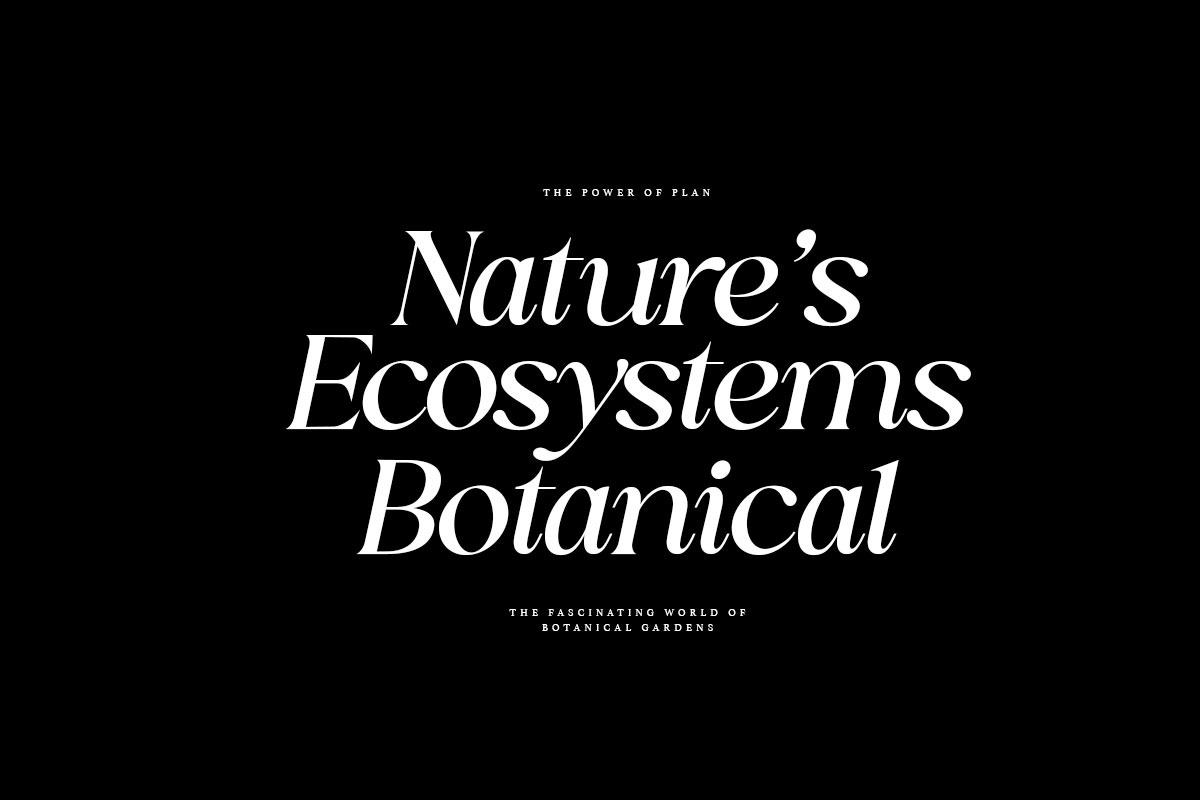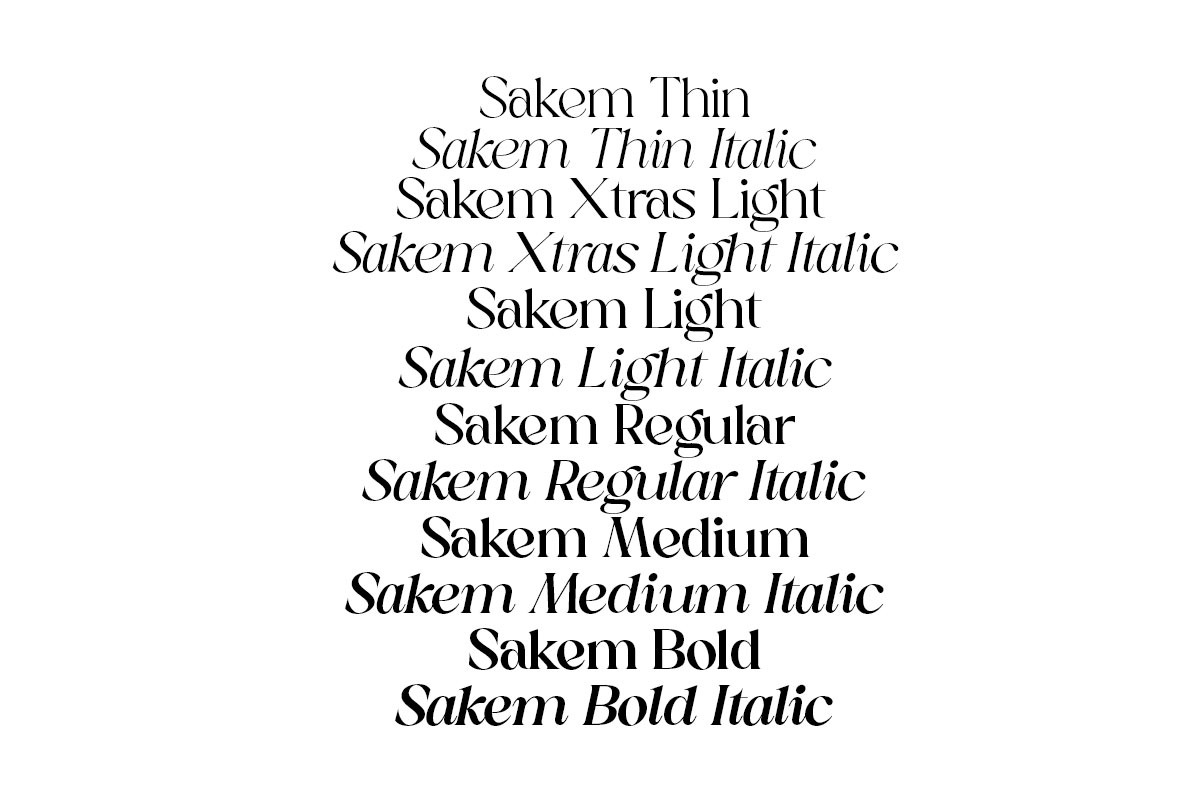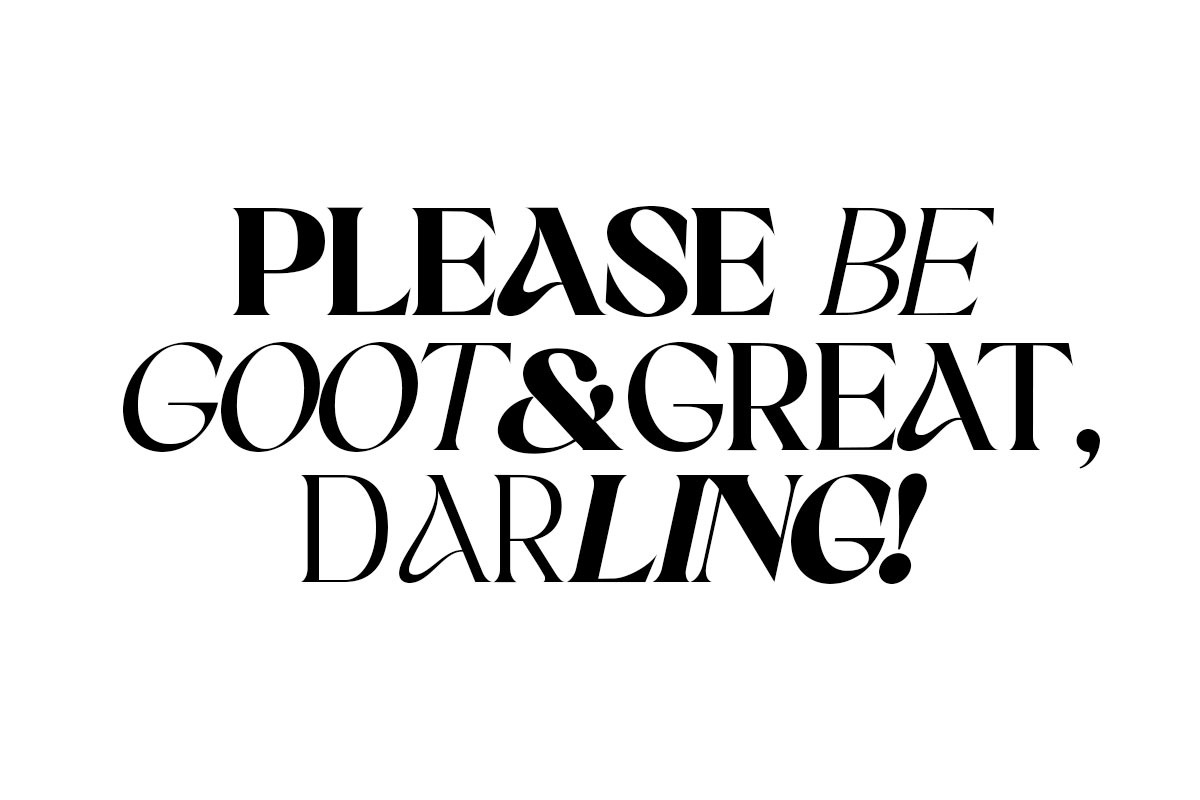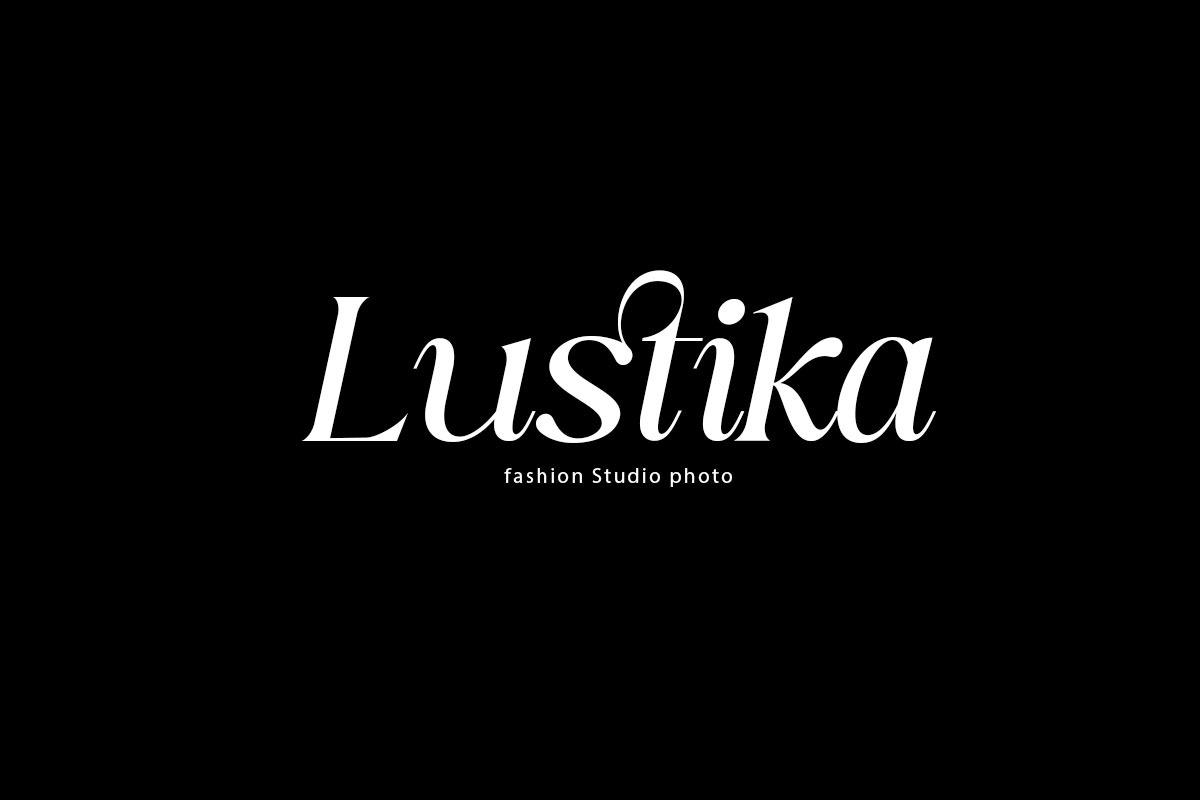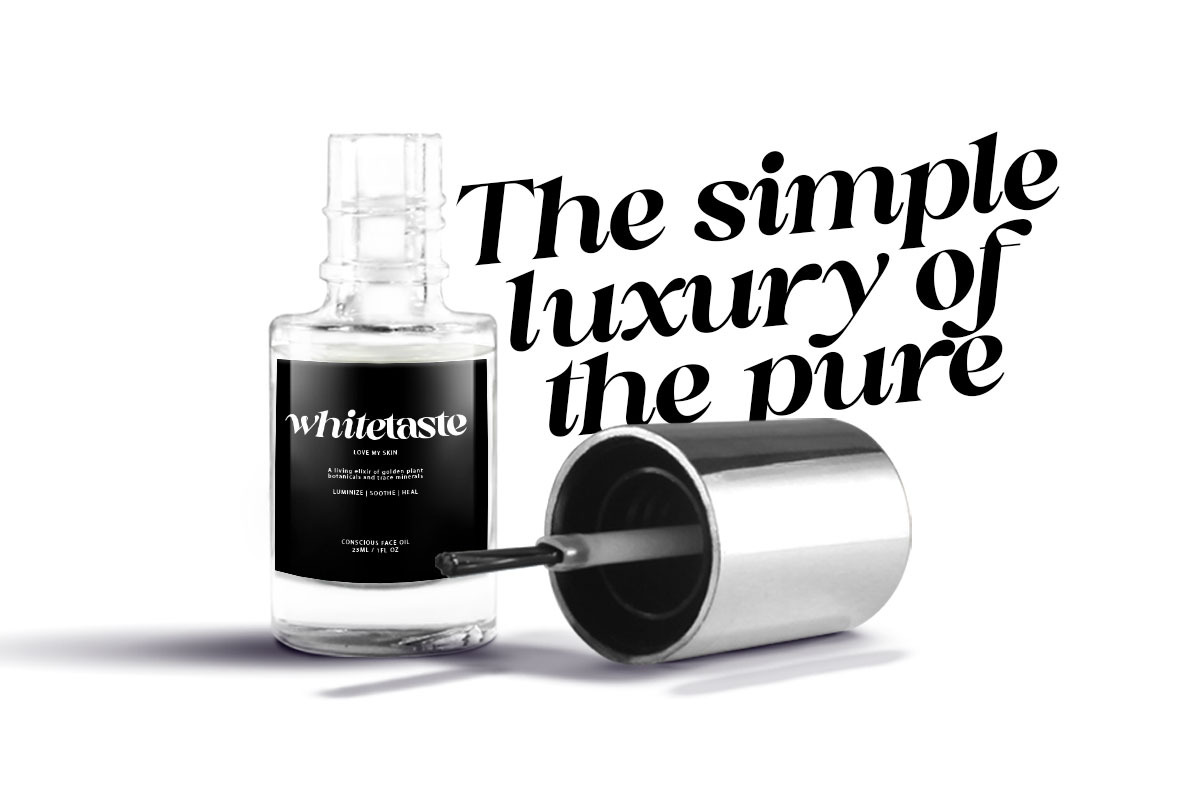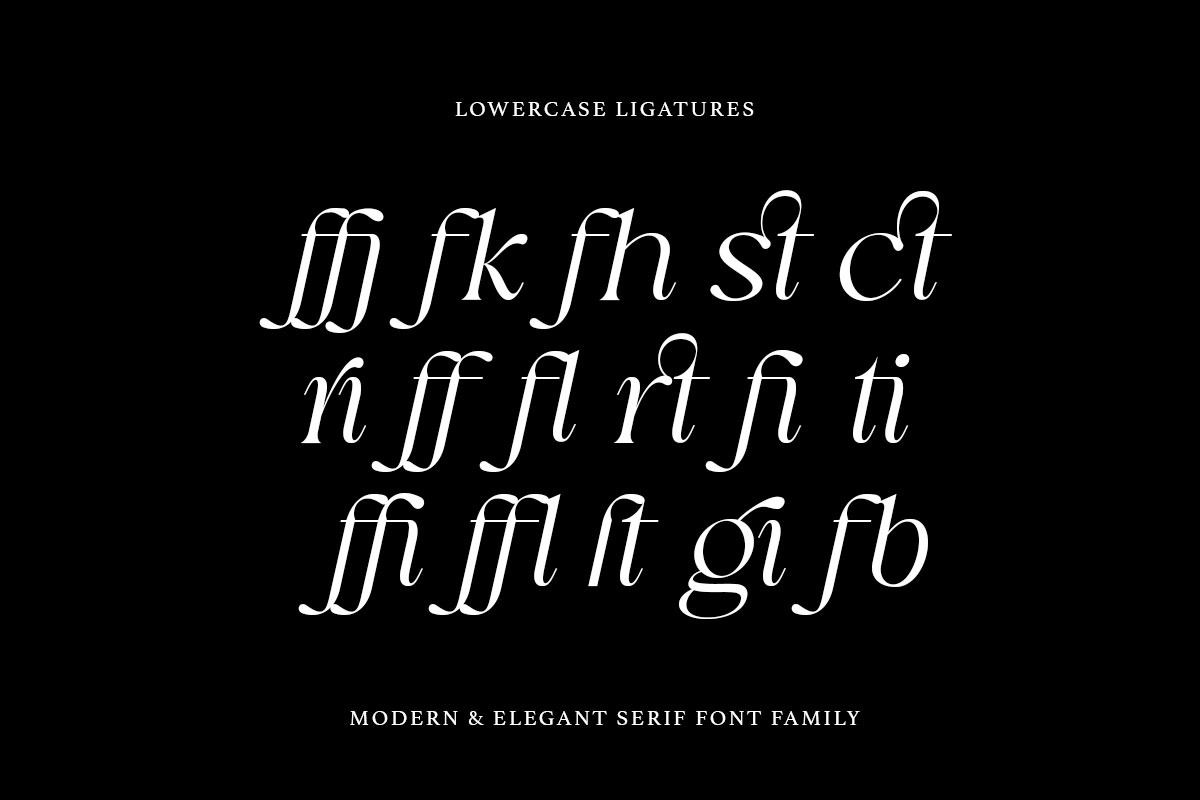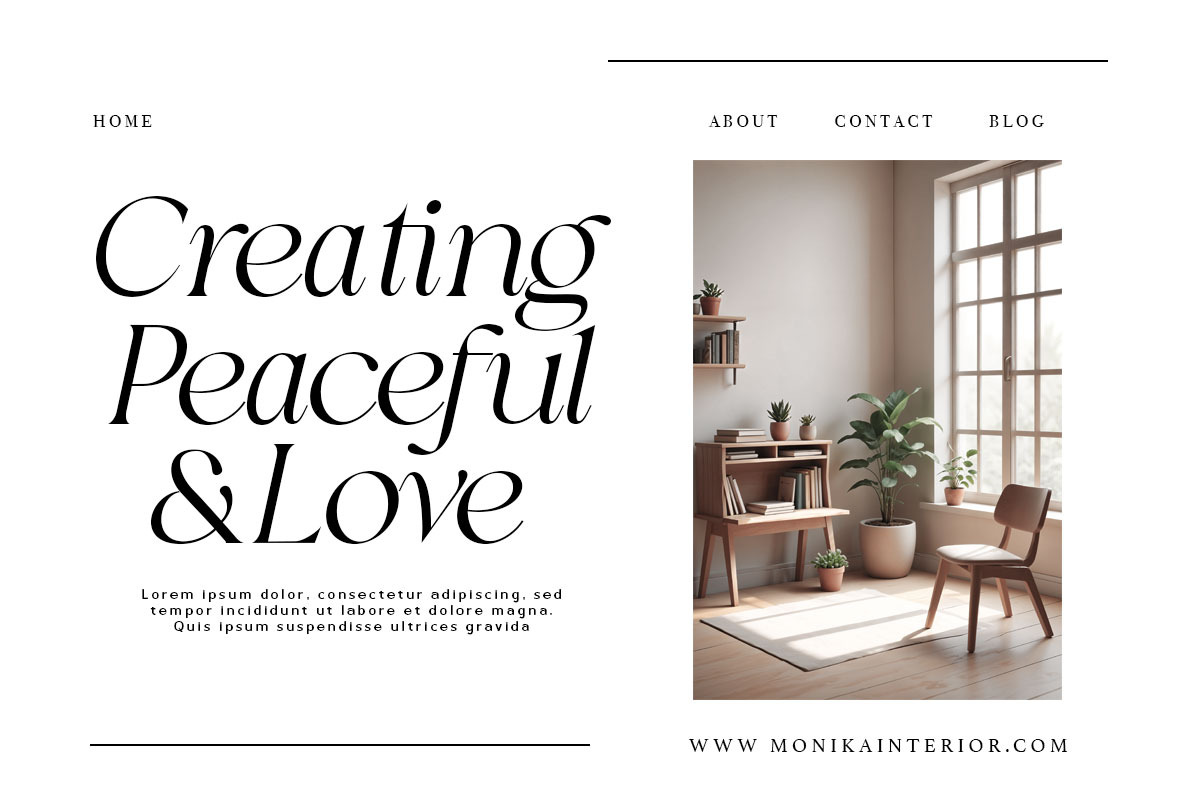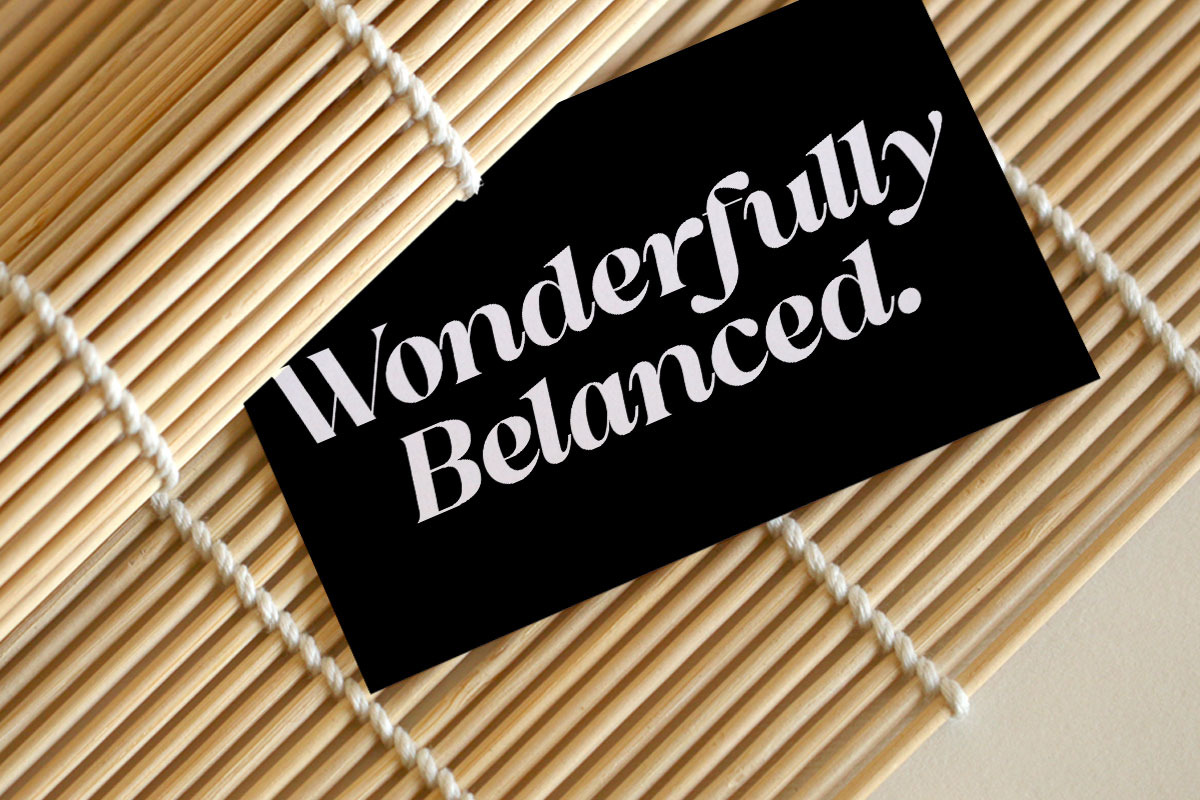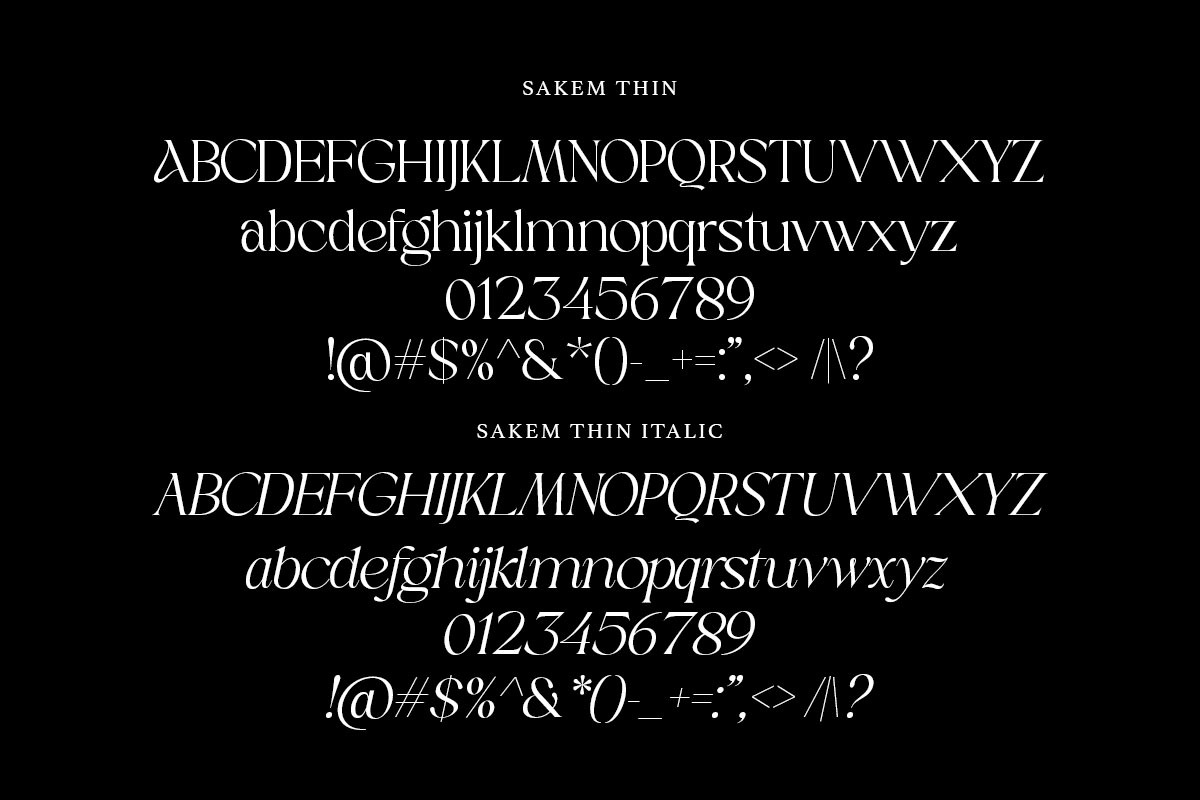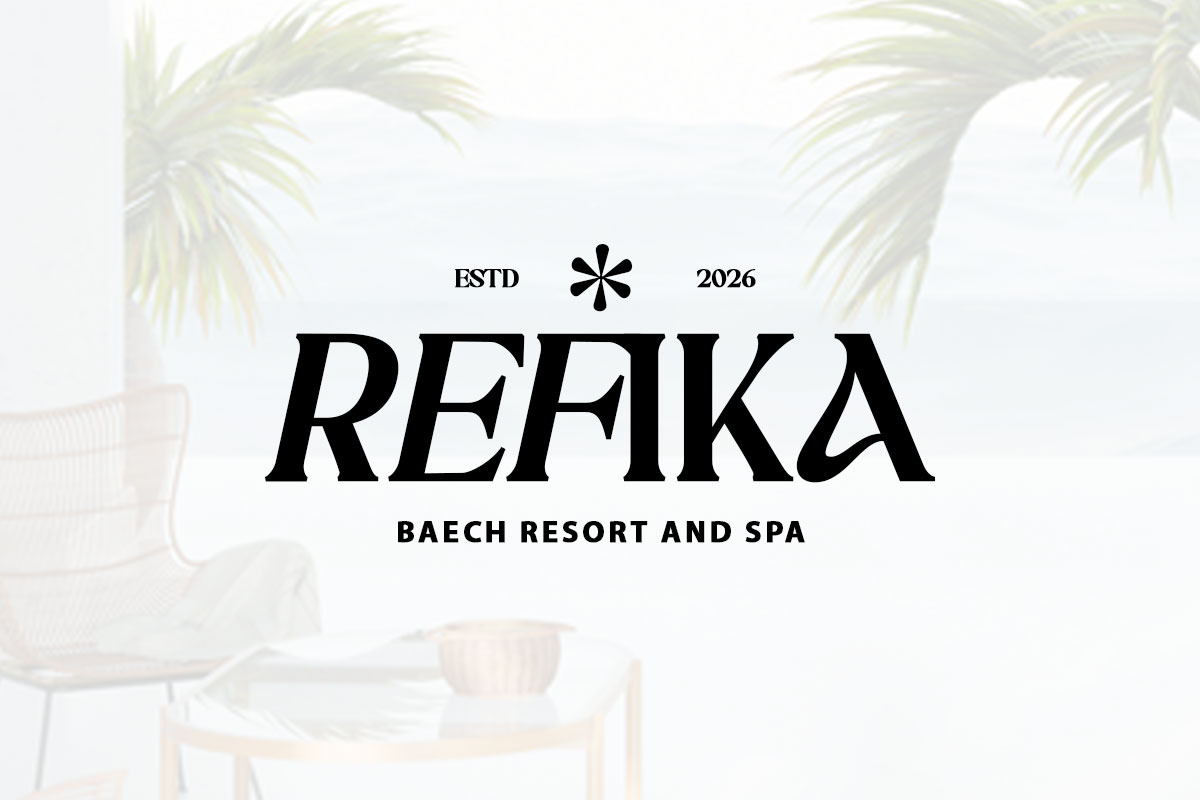
Sakem Elegance Serif Family (20 Font
Sakem Elegance - akem Elegance Serif Family (20 Font)
Sakem Elegance is a modern serif font family that blends elegance with a refined retro character. Featuring Regular and Italic styles in various weights, this font is designed for flexibility, sophistication, and strong visual impact. Smooth curves and balanced proportions make Sakem Elegance perfect for both premium and contemporary design projects.
Sakem Elegance also includes a complete set of:
Uppercase and lowercase letters
Multilingual characters